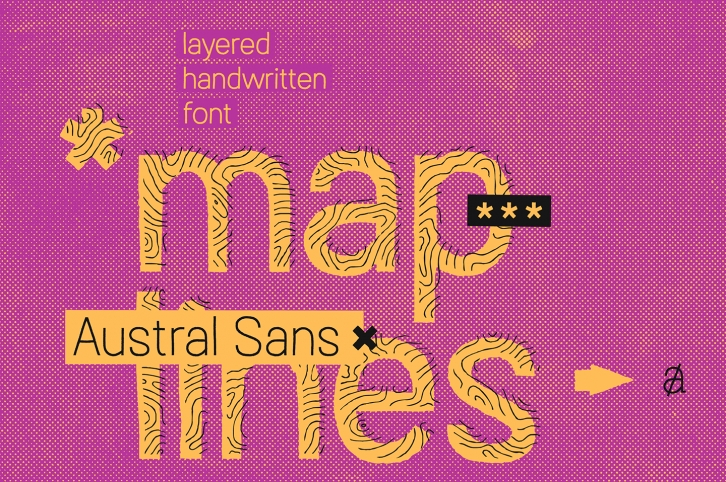
Austral Sans Maplines FONT Download
Austral Sans Maplines Font Download
Austral Sans Maplines is a gorgeous font that was realeased on February 5, 2017. The font can be used in many style contexts and design environments. Perfect for invitations, magazines, websites, logos, and more! It was designed by antipixel and the file size is 18.67 MB. Thanks for checking out this font!